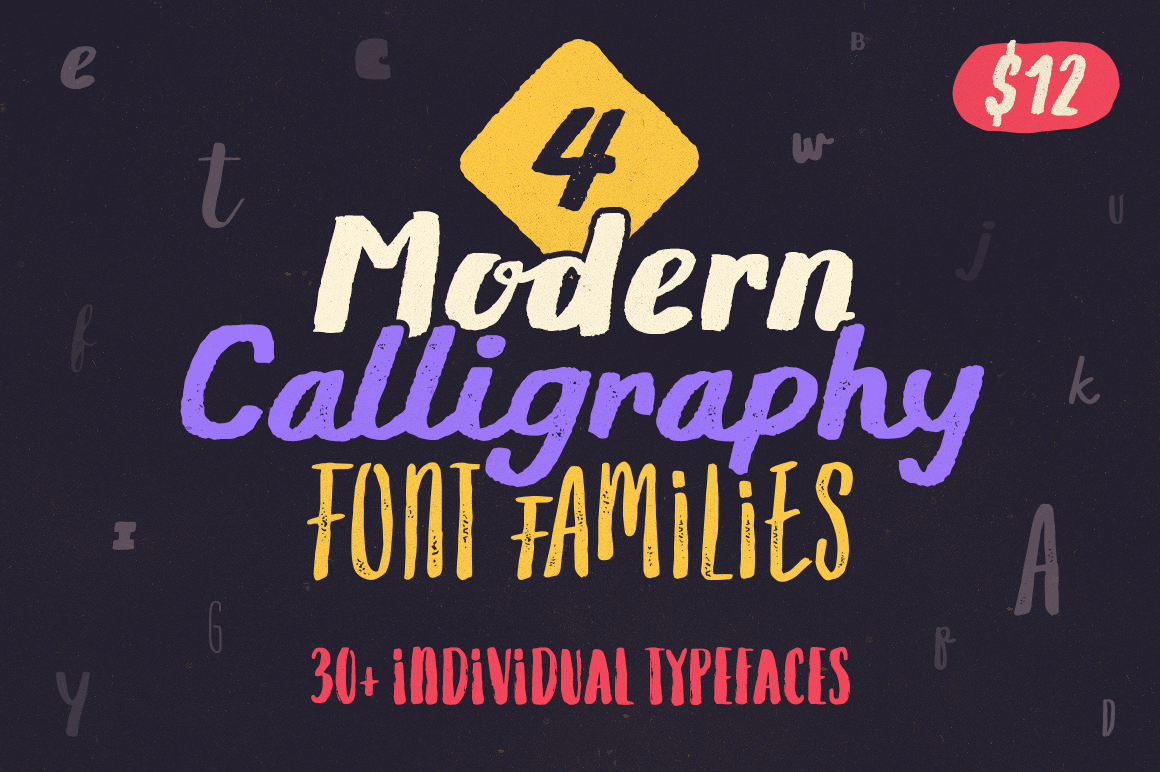
Need a brush font for your latest project? Then you can stop your search because this Mighty Deal from Typsketchbook has you completely covered. Full of 4 Modern Calligraphy Font Families, your typeface toolbox will be overflowing with sketch styles from brush to ink pen to marker, all thanks to the 30+ individual typefaces included in this deal.
- 4 modern calligraphy font families in 1 discounted deal.
- Variety of sketch styles – brush, ink pen and marker.
- Multiple styles in each family.
- Mix and match within families to flow seamlessly throughout your projects.
- 30+ individual typefaces overall.
Gliny
Derived from various tools ranging from pen to paint brushes, Gliny includes multiple families such as brush, slab serif, heavy, and handmade script.
Flowy
Romantic and delicate in nature, Flowy is composed of four subfamilies, with each offering an original version that embodies freehand style, a clean option, or rust which changes the texture. That’s a total of 29 individual typefaces in 1 mega font family.
Mates Malty
Derived from various tools like paint brushes, markers and ink pens, Mates Malty was born by mixing different styles of handwriting fonts. With multiple styles in this family, you can mix and match to harmoniously fit your latest project.
Vild Scapes
With Normal, Inkless and Rust styles, Vild Scapes offers a variety of takes on the modern calligraphy handwriting font. WIth multiple designs (Brush, Script and Marker), there’s a tremendous amount of possibilities at your fingertips.